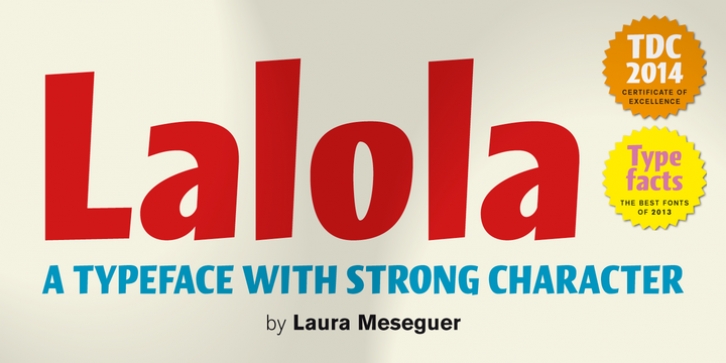
Lalola (first born as Lola in 1997) is a display typeface inspired by a lettering model found in the book “Schriftschreiben Schriftzeichnen” by Eugen Nerdinger and Lisa Beck. Lalola takes the few letters available from that model and becomes a single style typeface with strong character. Lalola looks great when some upper case and loud voice words are needed.It comes with all the necessary characters for the languages based on the Latin alphabet, which makes Lalola a versatile typeface.